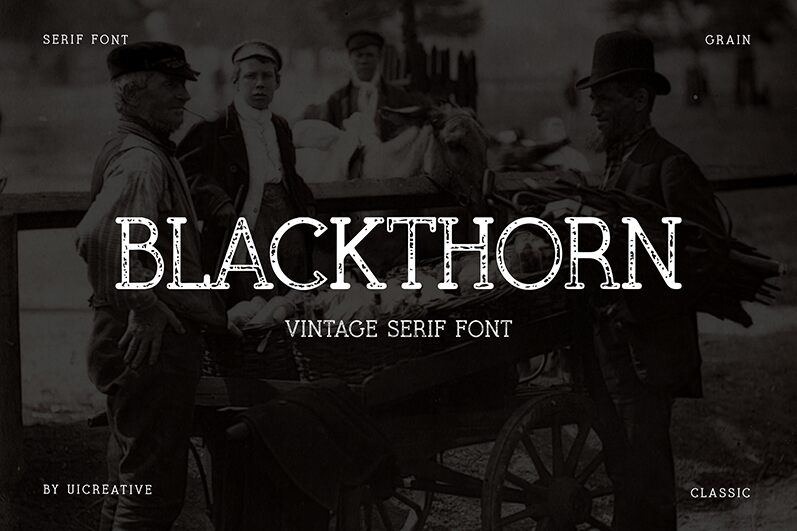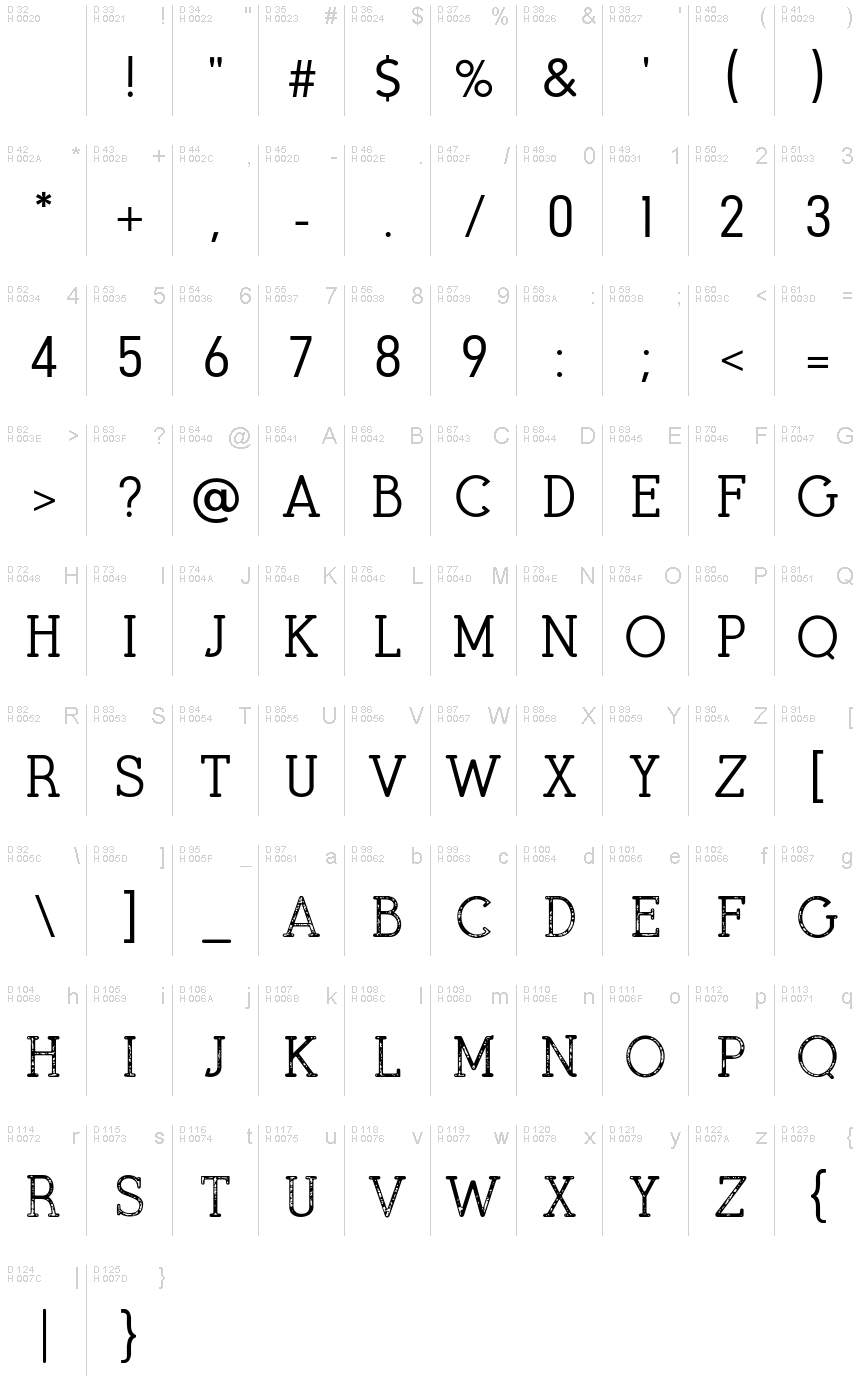
BlackthornScriptTypeface
Blackthorn Script, a captivating display typeface crafted by UI Creative, exudes a weathered charm that commands attention. This eroded script font boasts a rugged elegance, with its bold strokes and organic imperfections evoking a sense of timeless authenticity. The Blackthorn Script's unique character invites the viewer to explore its textural nuances, creating an immersive visual experience that resonates with those seeking a touch of rustic sophistication.
Blackthorn Script's versatility makes it a compelling choice for a wide range of design applications. Its distinctive aesthetic lends itself particularly well to branding, packaging, and editorial layouts, where its robust presence can elevate the overall visual impact. Whether used for eye-catching headlines, impactful logotypes, or decorative accents, this font's captivating personality is sure to leave a lasting impression on the audience.